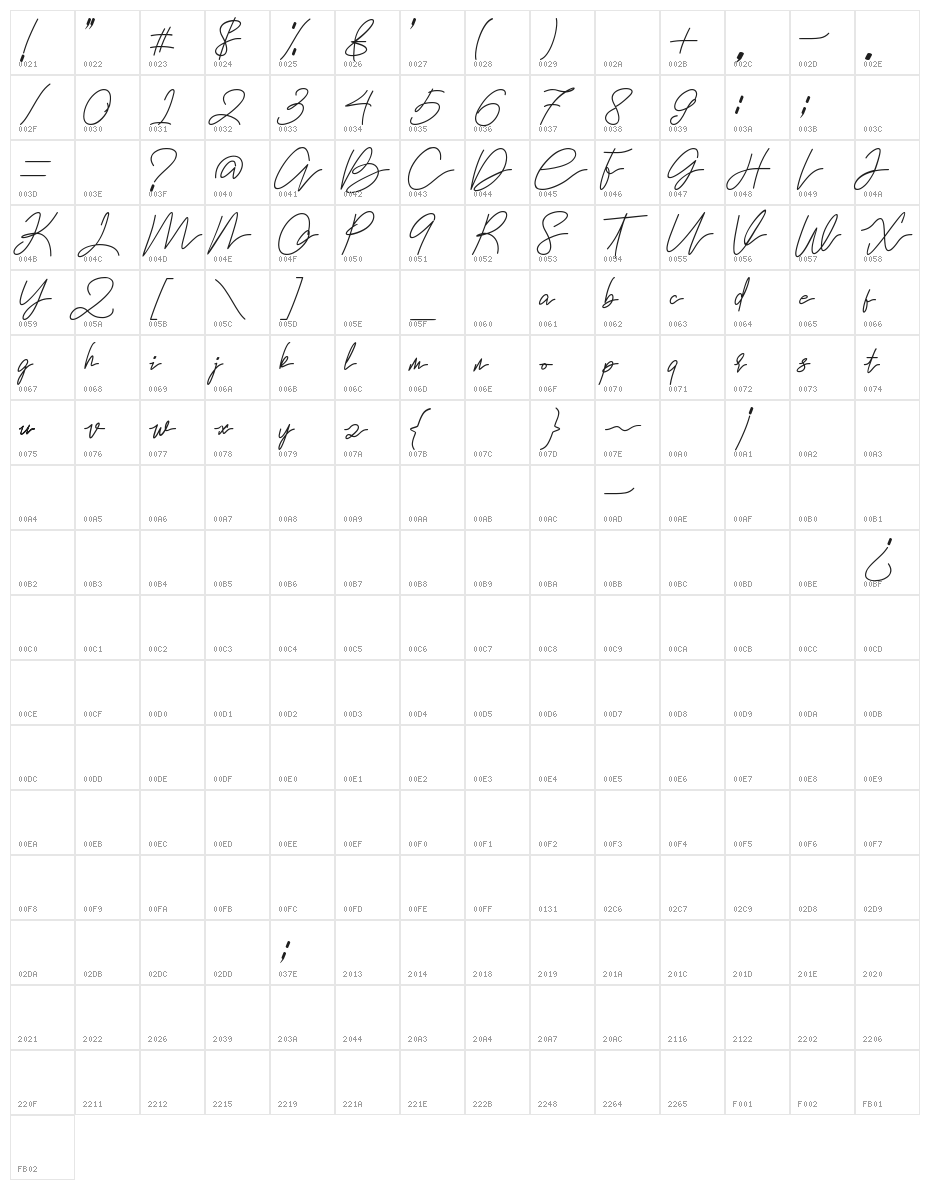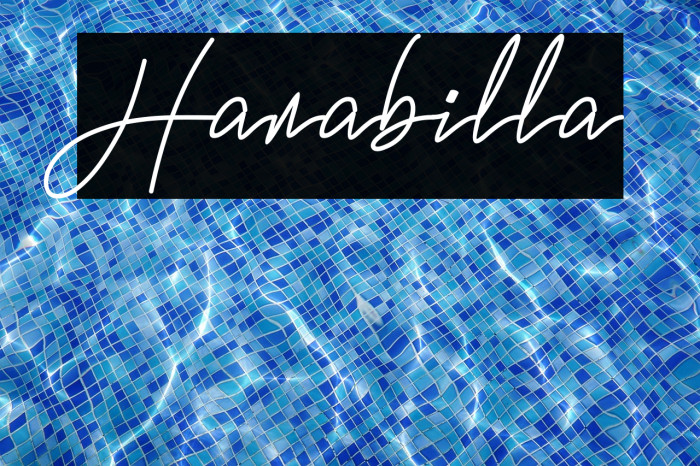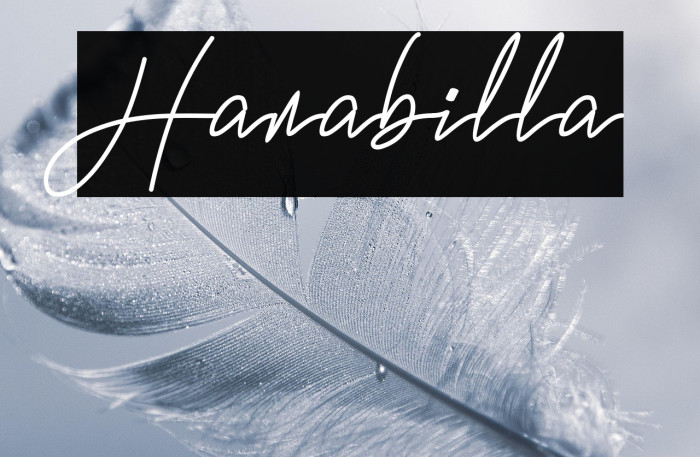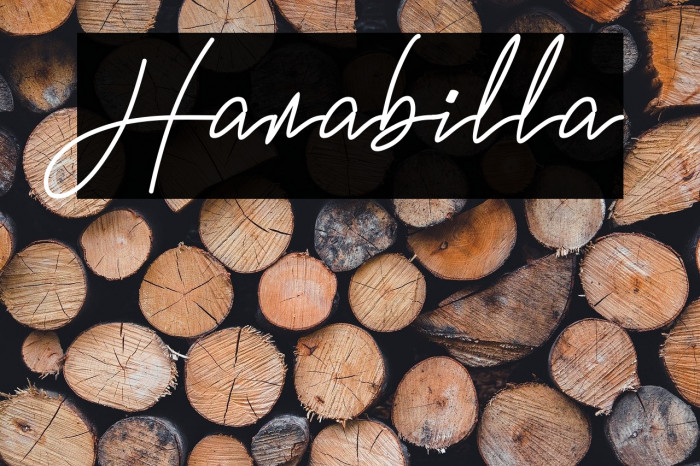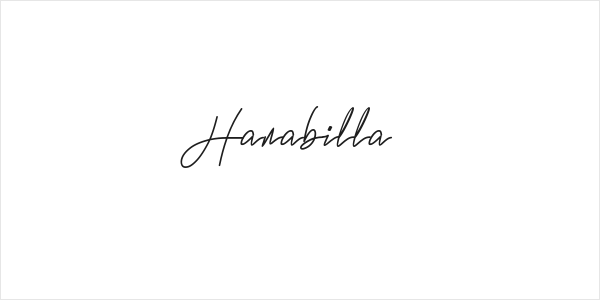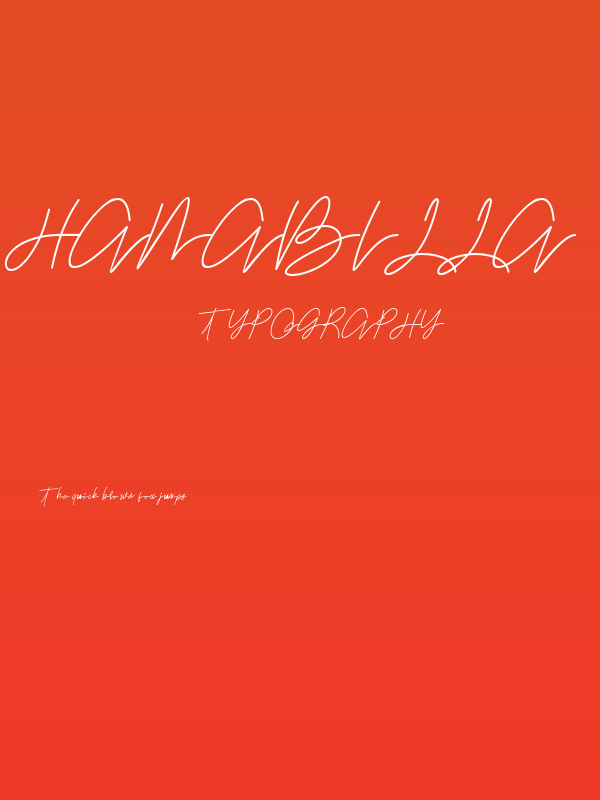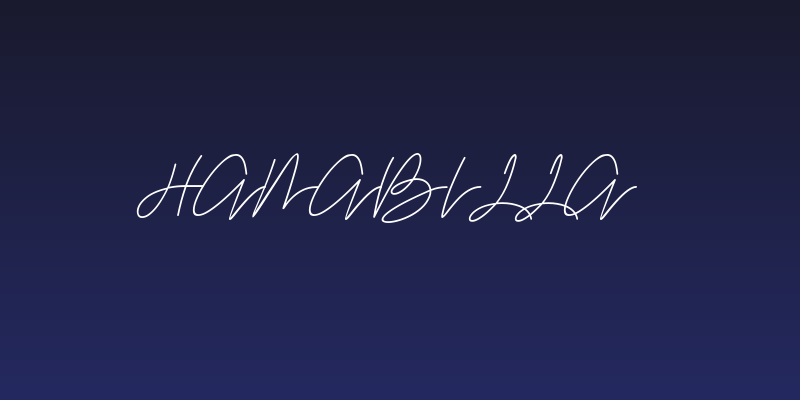
Hanabilla Font
Hanabilla Description
This font features a fluid, cursive style that mimics natural handwriting. The letters are connected, creating a seamless flow that is both elegant and casual. The uppercase letters are slightly more structured, while the lowercase letters exhibit a playful and dynamic movement. The numerals and special characters maintain the same cursive aesthetic, ensuring consistency across all glyphs. The strokes are smooth and continuous, giving the font a harmonious and approachable feel. This style is perfect for adding a personal touch to any design.
| Overall Style | Casual, Elegant |
| Use Case | Logos, Invitations, Personal projects |
| Proposed Projects | Ideal for wedding invitations, personal branding, greeting cards, and social media graphics. |